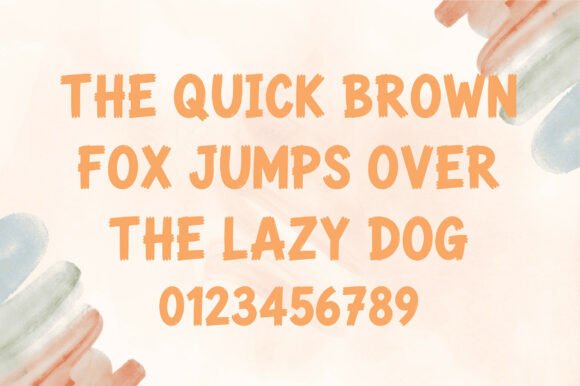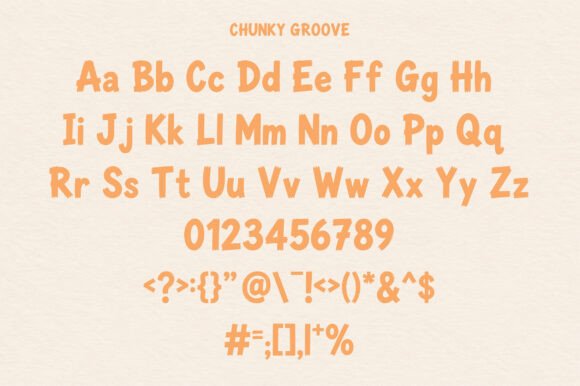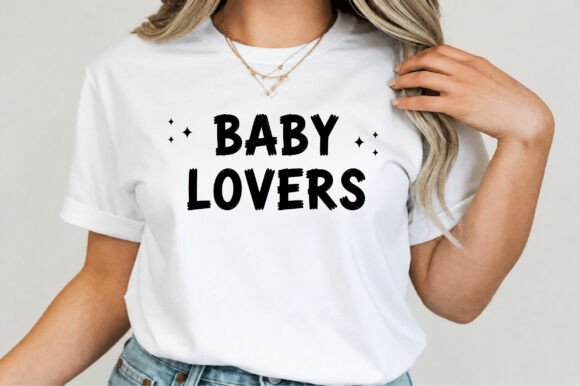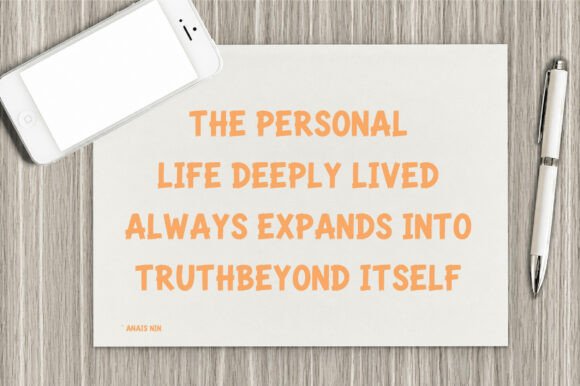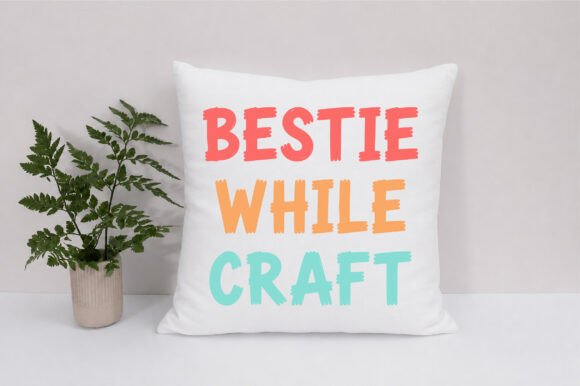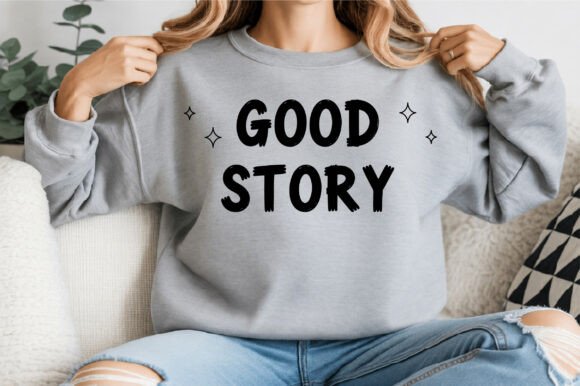
Introducing Chunky Brush Font: Add a Touch of Playful Elegance to Your Designs
Are you looking for a font that can add a dash of personality to your creative projects? Look no further than the Chunky Brush Font, a fun and playful brush font with a bold, handcrafted style. This typeface is perfect for designers and crafters who want to bring a warm, rustic feel to their work. With its rough edges and chunky letterforms, Chunky Brush Font is ideal for a wide range of applications, from kids’ designs to posters, branding, packaging, t-shirts, quotes, invitations, social media graphics, and playful display typography.
The Characteristics of Chunky Brush Font
Chunky Brush Font is a unique typeface that boasts a number of distinctive characteristics. Its bold, handcrafted style gives it a warm and inviting feel, while its rough edges and chunky letterforms add a touch of playfulness. The font’s rustic, hand-painted look makes it perfect for designers who want to add a personal touch to their work. Whether you’re creating a poster, a t-shirt, or a social media graphic, Chunky Brush Font is sure to make your design stand out.
One of the best things about Chunky Brush Font is its versatility. This typeface can be used for a wide range of applications, including:
- Kids’ designs: Chunky Brush Font is perfect for creating fun and playful designs for kids, such as children’s books, posters, and activity sheets.
- Posters: The font’s bold, eye-catching style makes it ideal for creating posters for events, promotions, and products.
- Branding: Chunky Brush Font can be used to create unique and memorable brand identities, including logos, business cards, and letterheads.
- Packaging: The font’s rustic, hand-painted look makes it perfect for packaging design, including labels, tags, and product packaging.
- T-shirts: Chunky Brush Font is a great choice for creating fun and playful t-shirt designs, including quotes, slogans, and graphics.
- Quotes: The font’s bold, expressive style makes it ideal for creating inspiring and motivational quotes.
- Invitations: Chunky Brush Font can be used to create unique and personalized invitations for parties, events, and special occasions.
- Social media graphics: The font’s playful, eye-catching style makes it perfect for creating social media graphics, including Facebook posts, Twitter headers, and Instagram graphics.
Why Choose Chunky Brush Font?
There are many reasons why designers and crafters should choose Chunky Brush Font for their creative projects. Here are just a few:
- Unique and distinctive style: Chunky Brush Font has a bold, handcrafted style that is sure to make your designs stand out.
- Versatile: The font can be used for a wide range of applications, from kids’ designs to posters, branding, and packaging.
- Easy to read: Despite its bold, chunky style, Chunky Brush Font is easy to read, even at small sizes.
- Customizable: The font can be customized to suit your needs, including adjusting the size, color, and style.
Tips for Using Chunky Brush Font
Here are a few tips for using Chunky Brush Font in your creative projects:
- Use it sparingly: While Chunky Brush Font is a beautiful typeface, it can be overwhelming if used too much. Use it sparingly to add emphasis and interest to your designs.
- Pair it with other fonts: Chunky Brush Font can be paired with other fonts to create a unique and interesting contrast. Try pairing it with a clean, sans-serif font for a bold and eye-catching look.
- Experiment with colors: The font’s rustic, hand-painted look makes it perfect for experimenting with different colors and textures. Try using it with bright, bold colors or soft, pastel shades.
| Font Name | Chunky Brush Font |
| Author | Artisan Vibes |
Chunky Brush Font is a fun and playful brush font with a bold, handcrafted style. With its rough edges and chunky letterforms, this typeface brings a warm, rustic feel to your creative projects. Perfect for kids’ designs, posters, branding, packaging, t-shirts, quotes, invitations, social media graphics, and playful display typography, Chunky Brush Font is a versatile and unique typeface that is sure to make your designs stand out. Whether you’re a designer, crafter, or DIY enthusiast, Chunky Brush Font is a great choice for adding a touch of personality and elegance to your work.